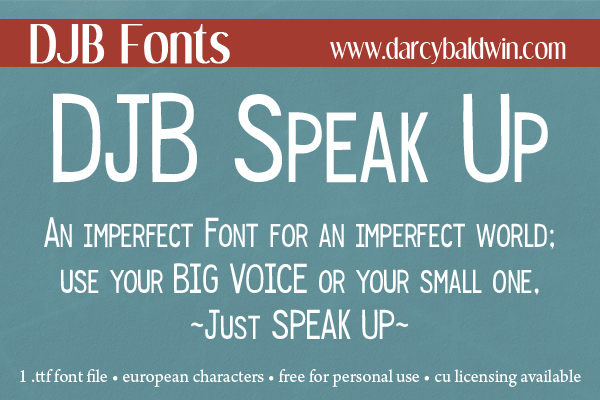
DJB Speak Up Font
DJB Speak Up! A slightly imperfect font for an imperfect world. Whether you use a BIG VOICE or a small voice or you like to mix them together in unison, USE YOUR VOICE and Speak up!